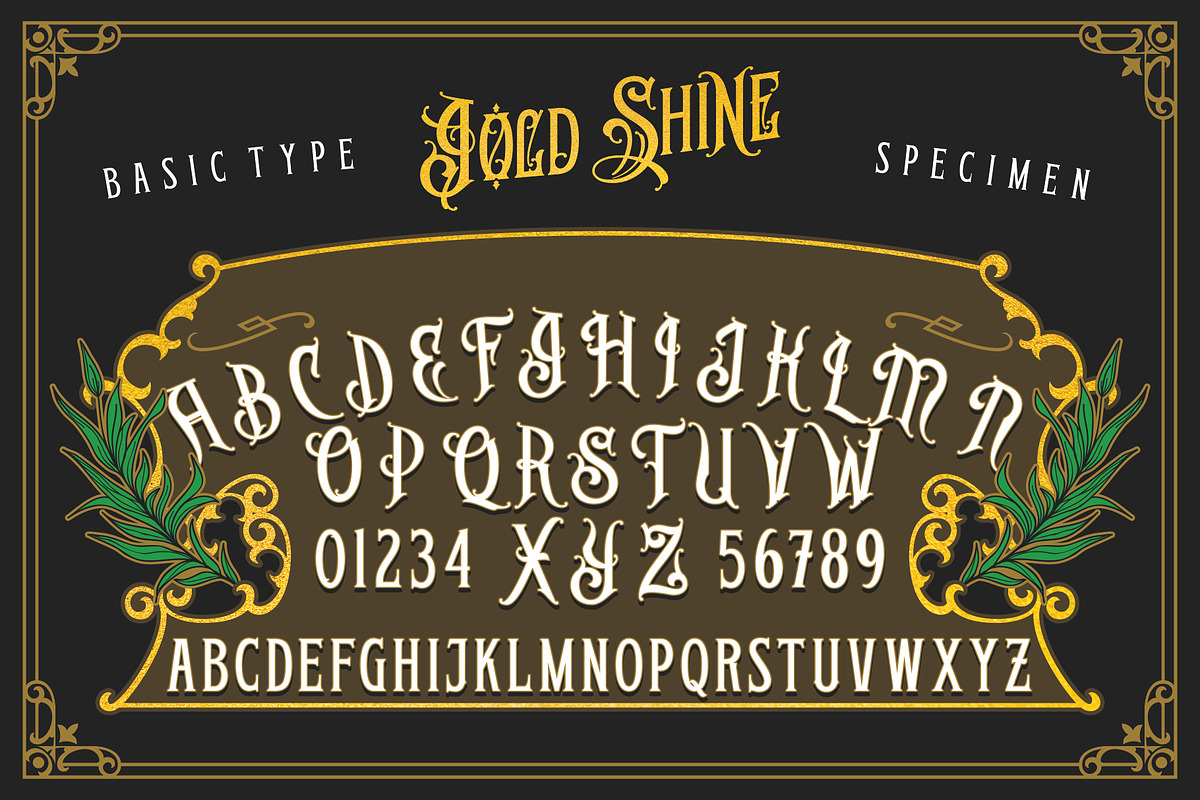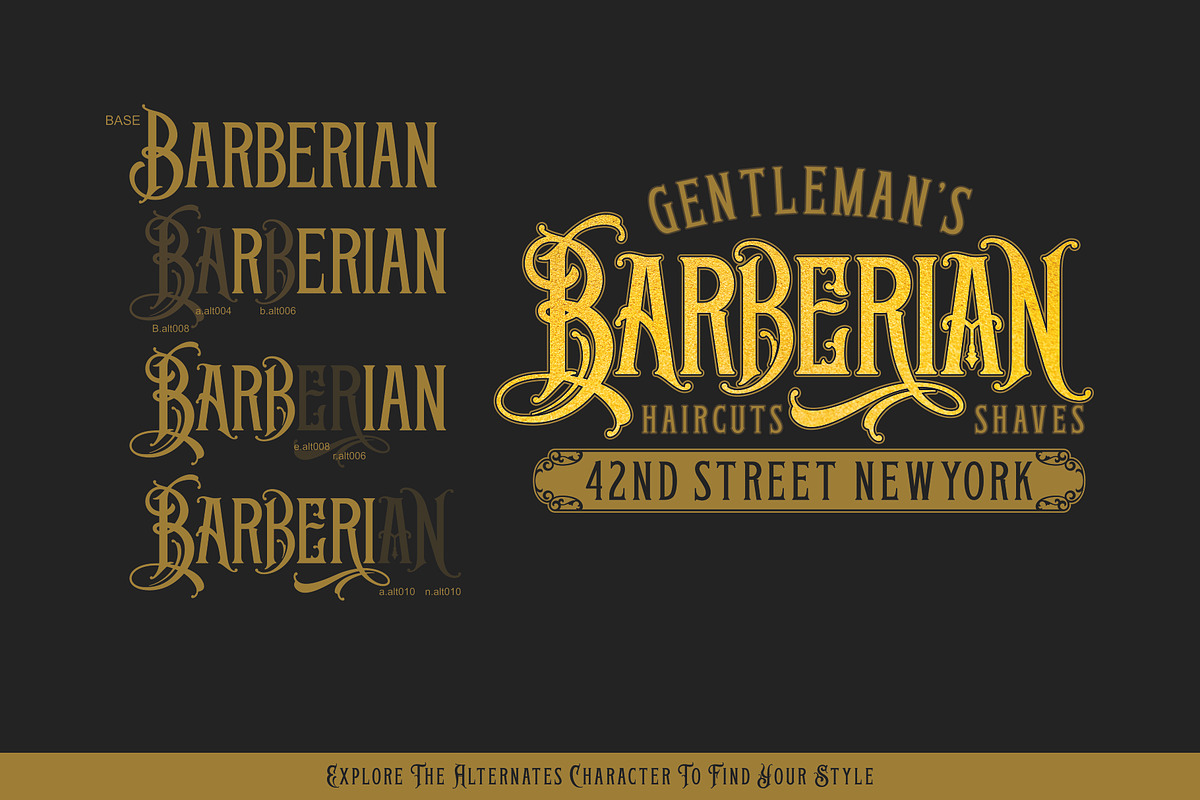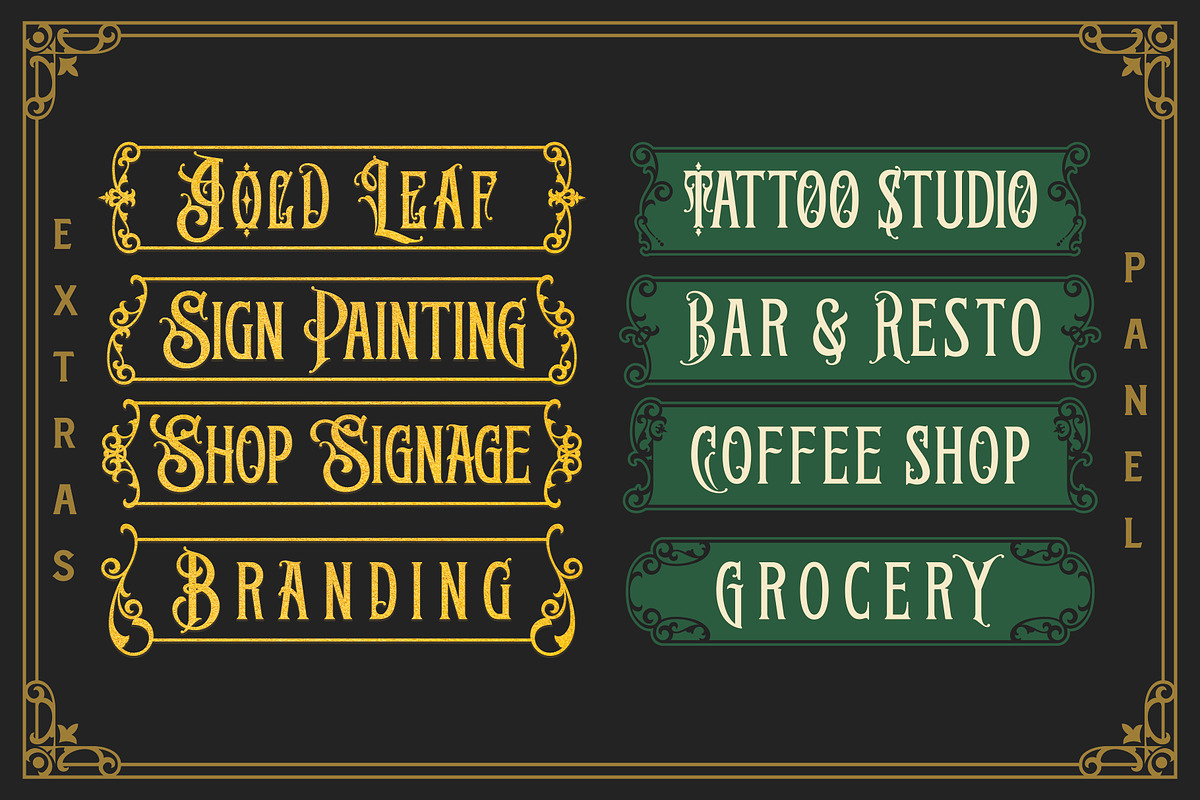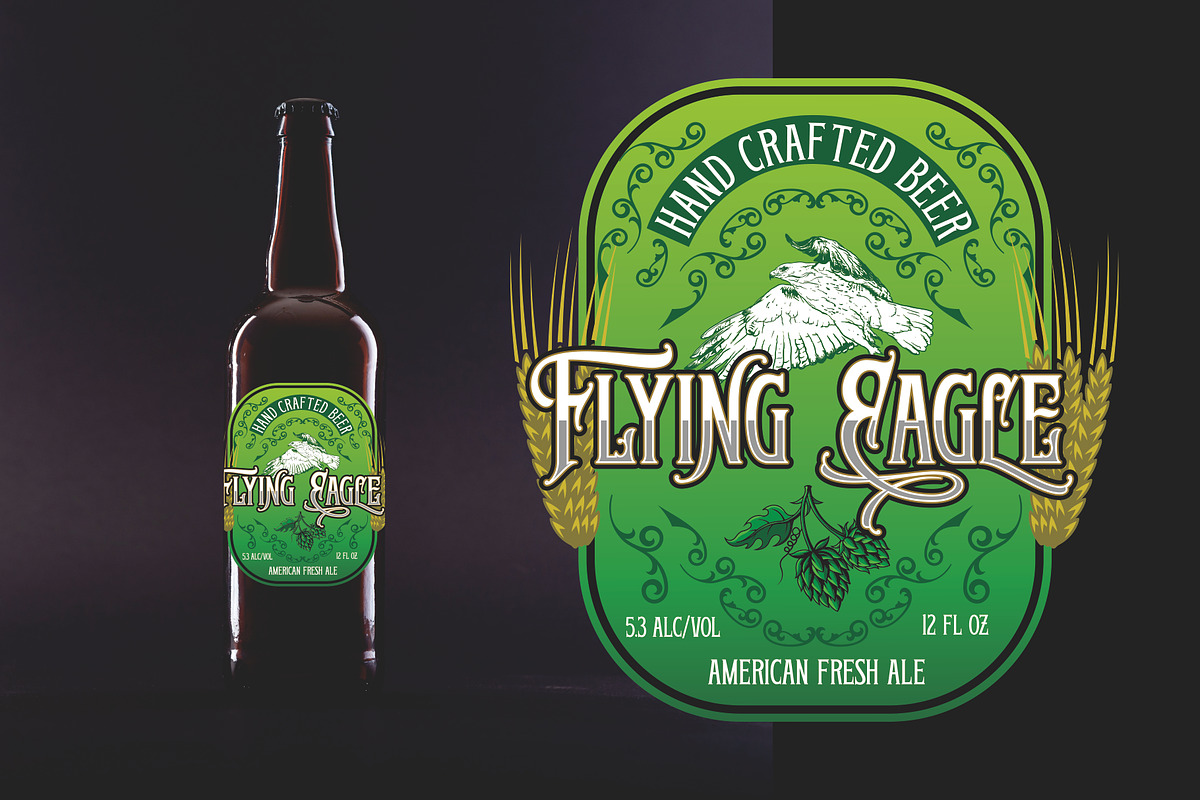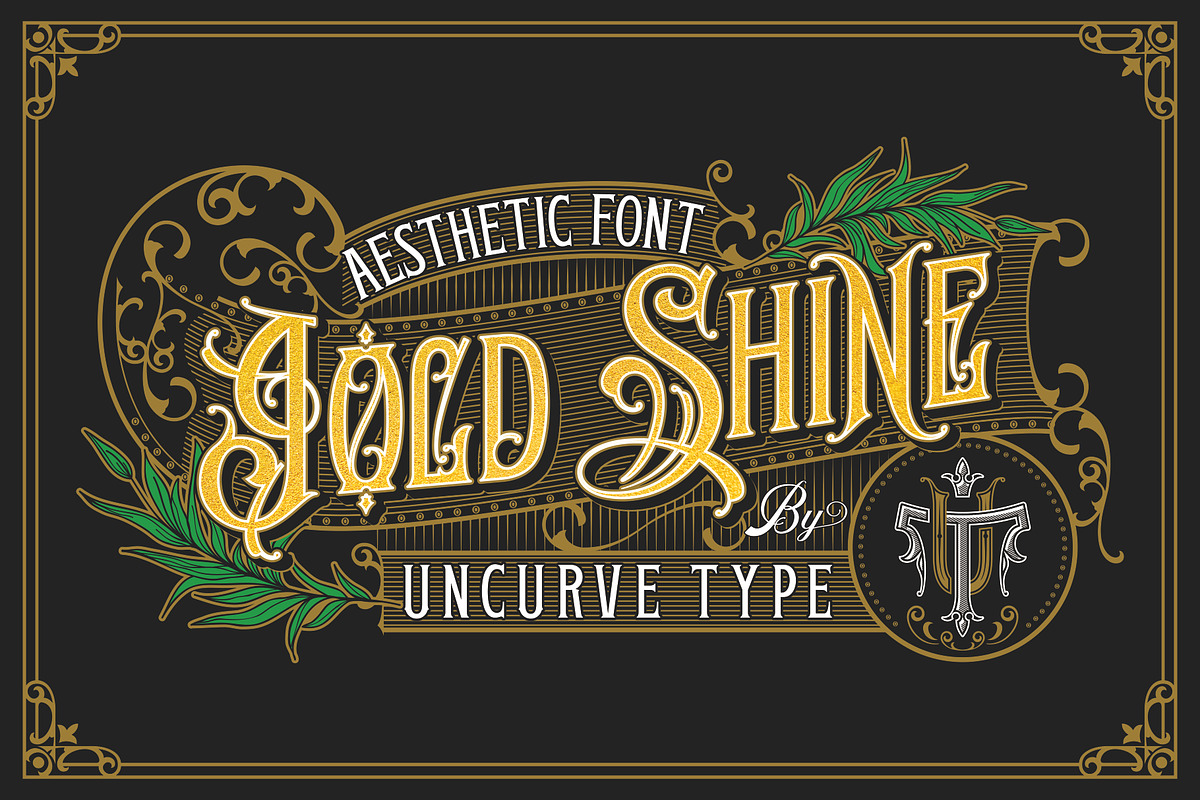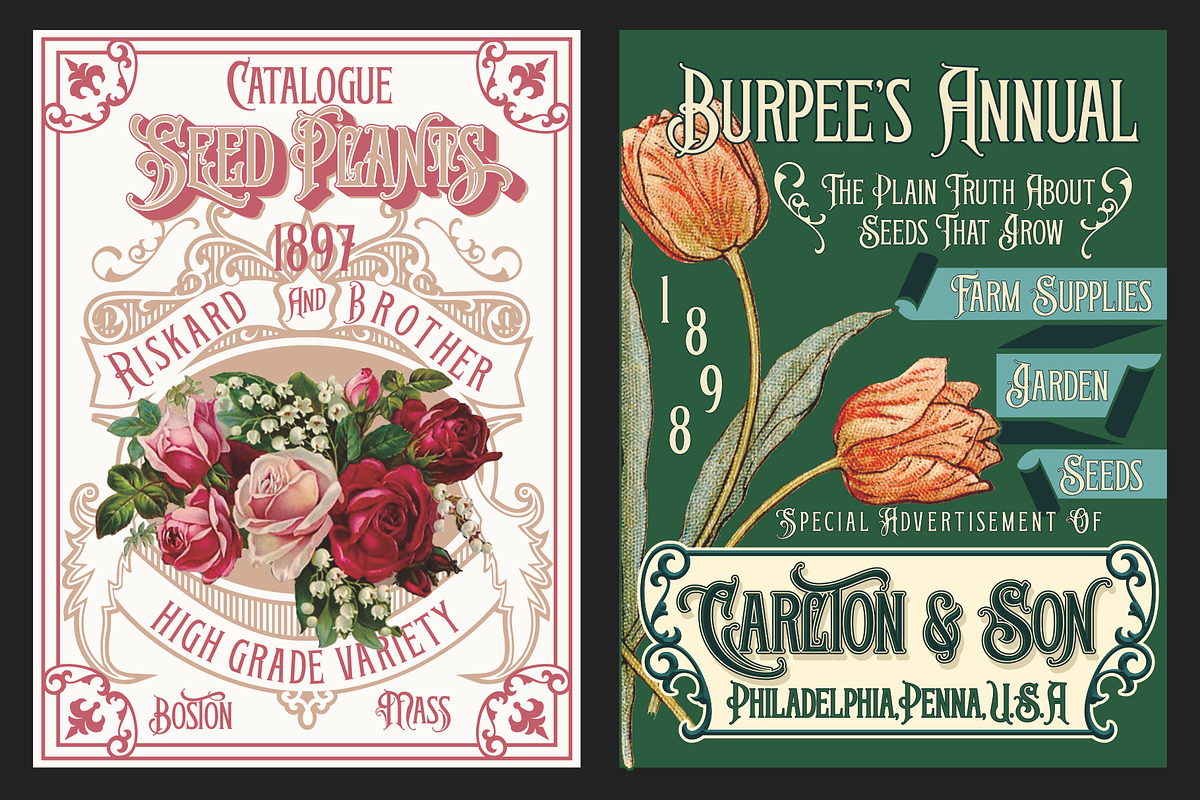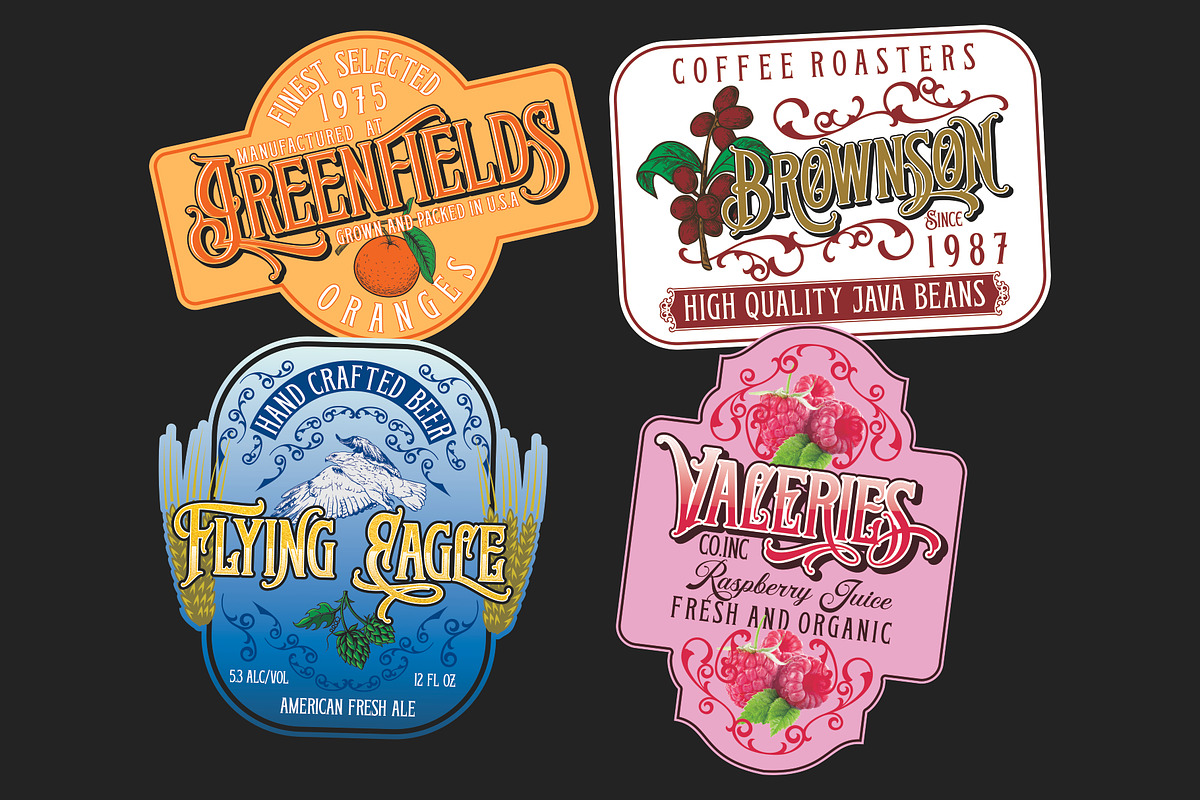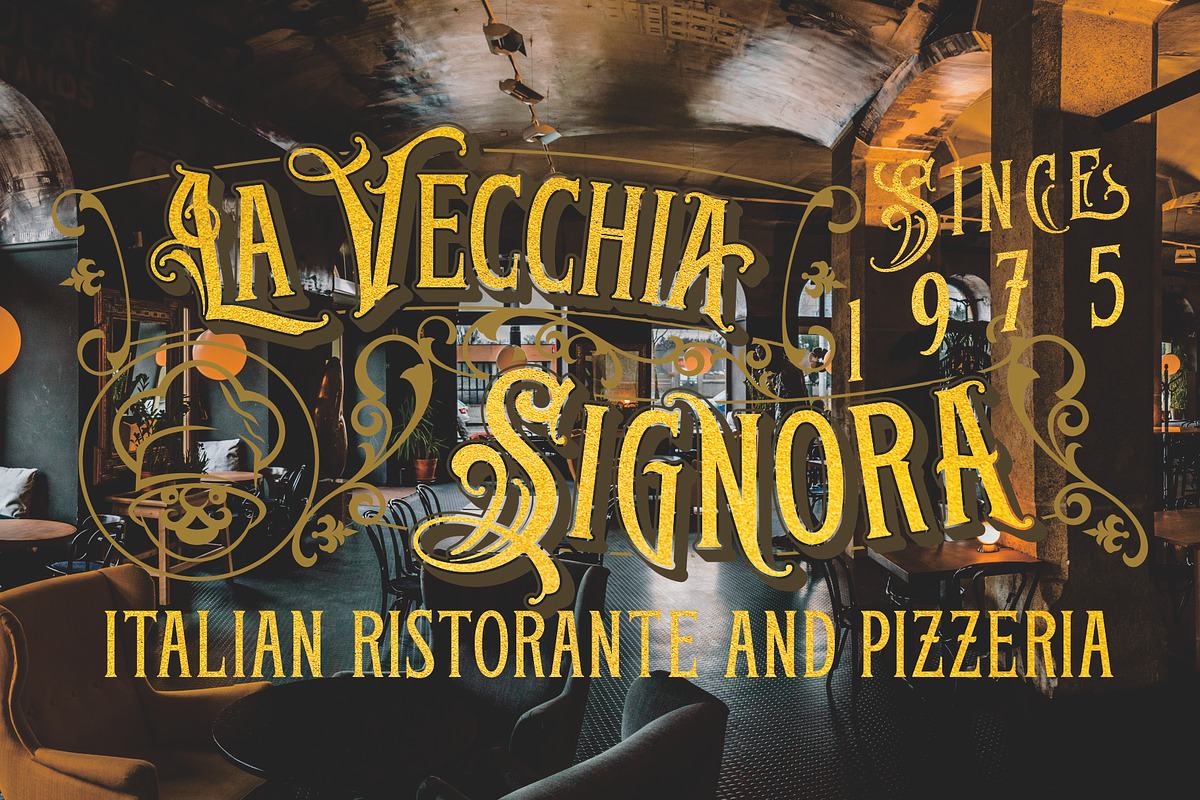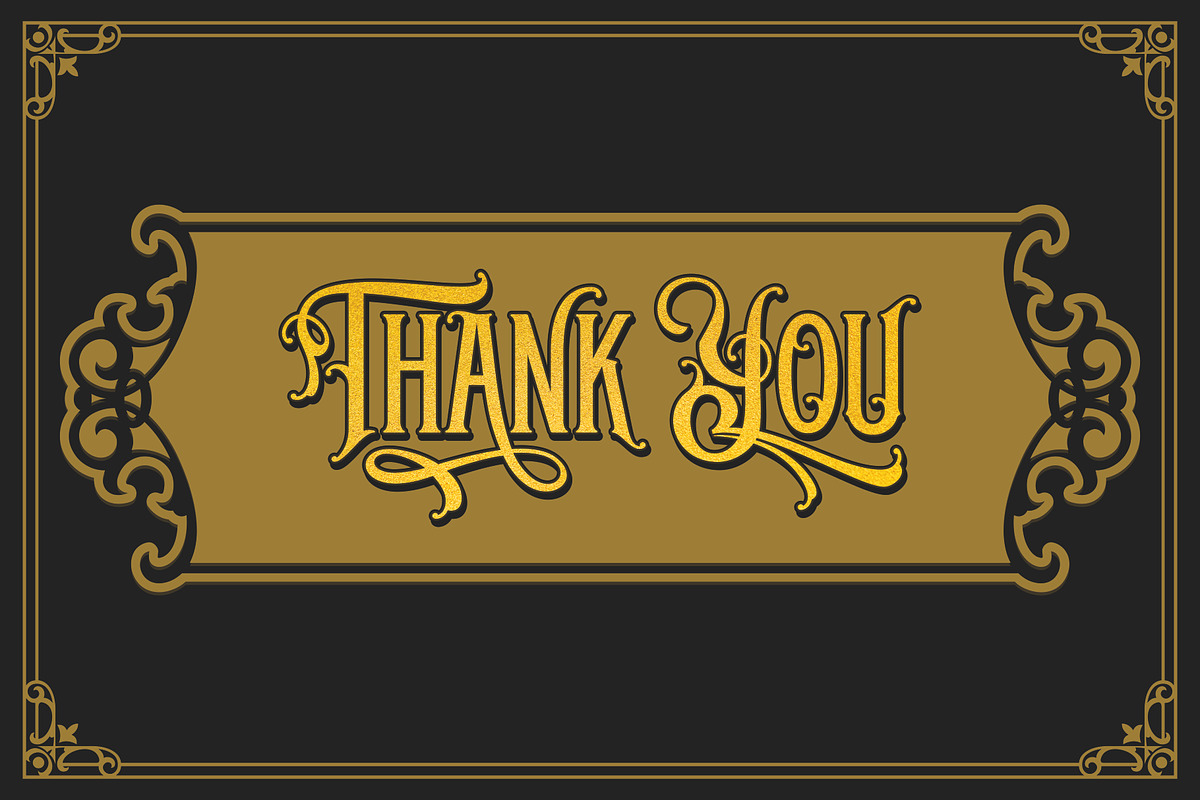
GoldShine with Extras
If you like old style type, ephemera or victorian era, you must be collect this font , its combination of old and modern touch ,it so adaptable and that make an eye catching design. This unique and classic font for signage, label, poster, gold leaf, sign painting, branding and the other graphic design made.
Gold shine inspired of vintage advertising and sign shop around the world. Gold shine comes with tons of alternates characters to make more eye cacthy . It is suitable for authentic logos, headings, sign painting, posters, letterhead, branding, magazines, album covers, book covers, movies, apparel design, flyers, greeting cards, product packaging, and more. To make everyone enjoyed Gold shine give you one extras font including ornament and traditional badge. If you use Gold shine with you imagination, you just combine with the another font like script , serif or san serif font and adding some effect finally BOOM..!! you get a great design for your project.